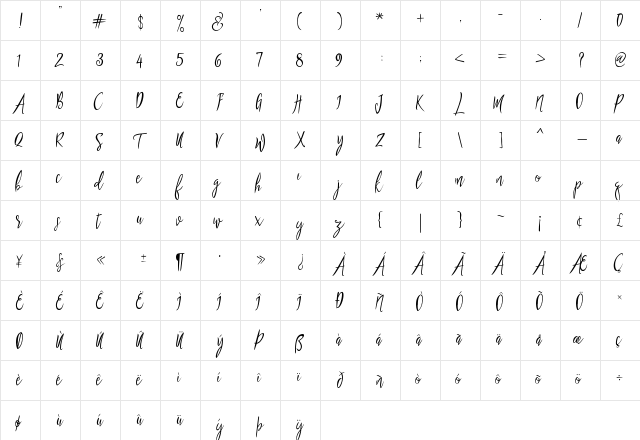
puralova Regular
Design Context for puralova Typeface
puralova is a composed and adaptable typeface that performs quietly and consistently across a wide range of design contexts.